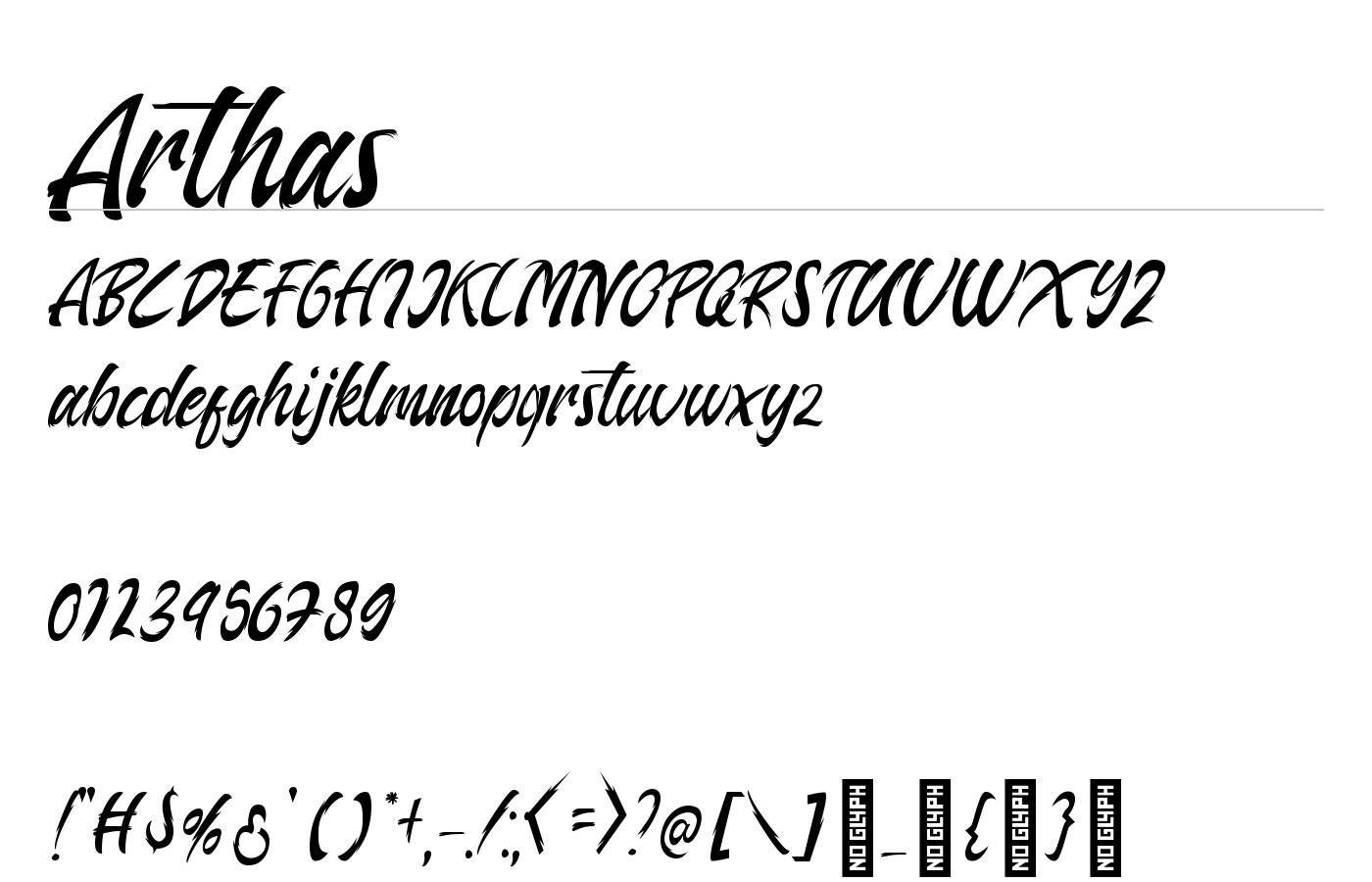
Arthas is a lively script font with a bold yet elegant brushstroke style that captures a hand-painted feel. Its dynamic, slightly condensed letterforms with moderate contrast make it perfect for creating energetic headlines, logos, or branding that seeks a personal and artistic touch. This font shines in creative projects where a stylish, modern, and expressive script adds personality and flair.
Arthas Font